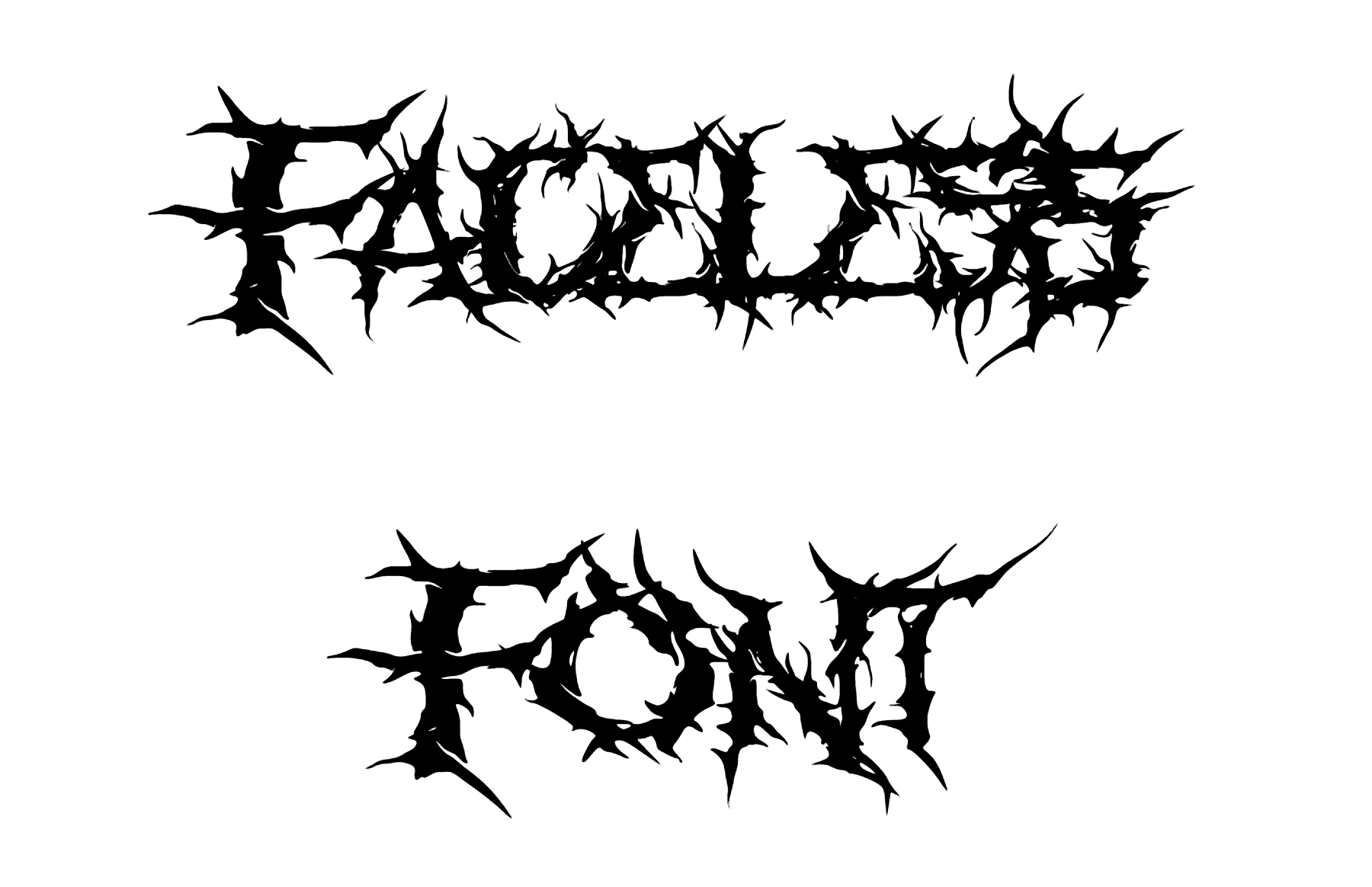
Faceless
Faceless is a gothic font created by Anang F & Malik Wsn | Gassstype Studio and released through Gassstype Studio (2021). Its pointed, heavy strokes give it a dark, dramatic blackletter look. You can download it for free and test it with your own words in the preview above.
- Designer: Anang F & Malik Wsn | Gassstype Studio
- Publisher: Gassstype Studio
- Extra characters: 32 copy-and-paste alternates (Private Use Area)
What You Can Type With Faceless
You get every letter from A to Z in both cases and all the numbers from 0 to 9, which means Faceless can handle full sentences, dates and prices. Common punctuation such as &, !, ? and @ is included as well. It also has the accented letters you need for Spanish, French, Portuguese and Italian.
How to Use the Alternate Letters in Faceless
Where Faceless Works Best
Think of Faceless for tattoos, metal band logos and dark fantasy titles. The file has no kerning data, so in logos and big titles check pairs like AV, To and Wa and tighten the spacing by hand. Blackletter is very hard to read in all caps, so type in normal upper and lowercase.